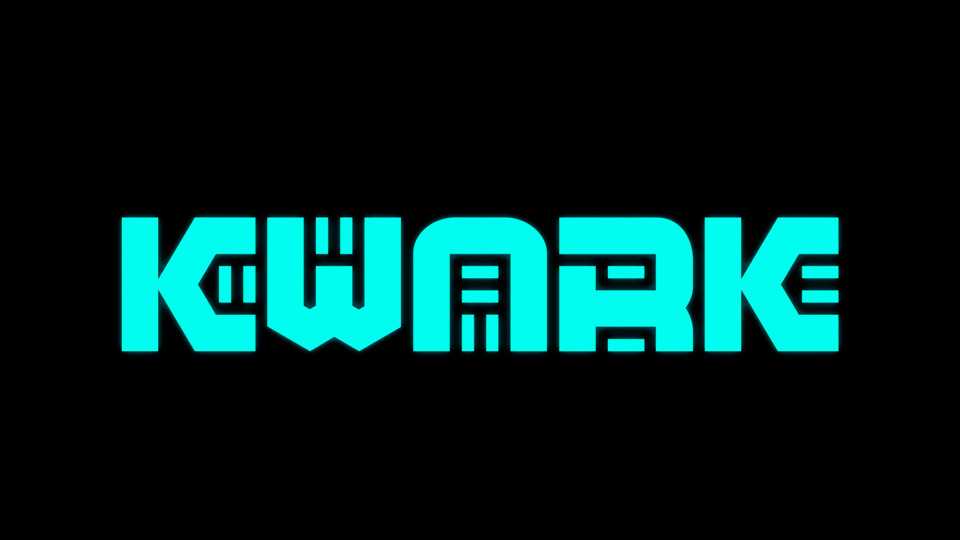
Download Kwark font, a bold monospaced typeface designed for sci-fi game. Kwark works well as decoration and it’s best for impressive titles and eye-catching posters.